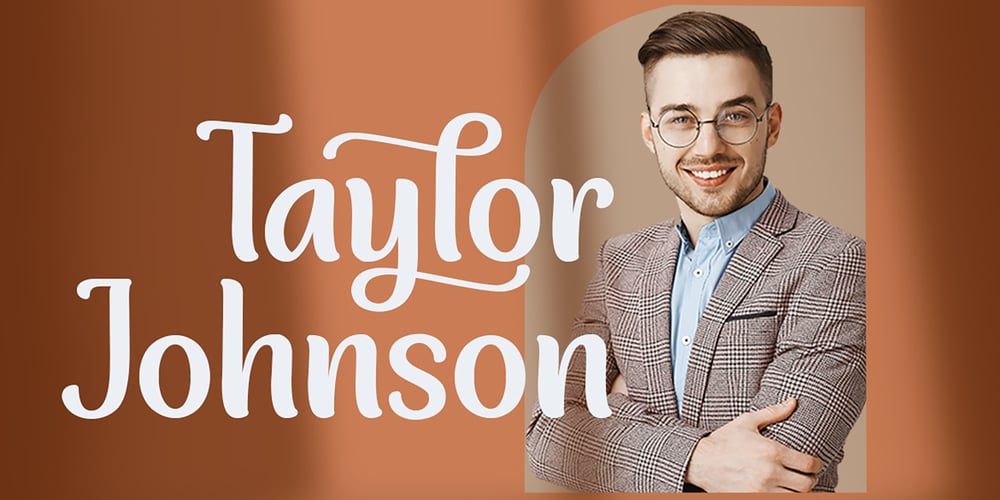
Taylor Johnson
Taylor Johnson font
Taylor Johnson Font Family was designed by Tezar Tantular and published by Keristyper Studio. Taylor Johnson contains 1 styles and family package options. Introducing Taylor Johnson Display Font is a handmade font style dance and then traces of life to have a Grungy brush and unique calligraphic shape, the writing style is very natural and simple. This font is good for logo design, Social media, Movie Titles, Books Titles, short text even long text letters, and good for your secondary text font with sans or serif.Featured: Standard Uppercase & Lowercase Numeral & Punctuation Multilingual : ä ö ü Ä Ö Ü ß ¿ ¡ Alternate & Ligature PUA encoded We recommend programs that support the OpenType feature and the Glyphs panel such as Adobe applications or Corel Draw. so you can use all the variations of the glyphs. Hope you enjoy our fonts!